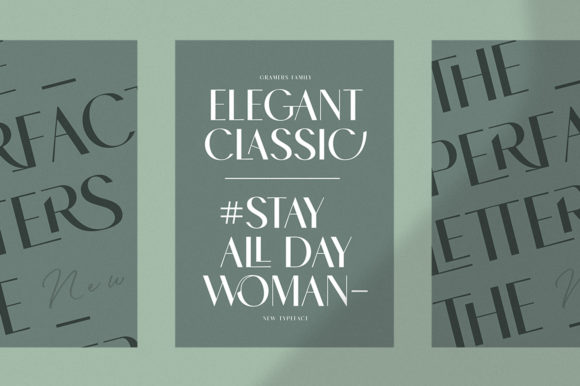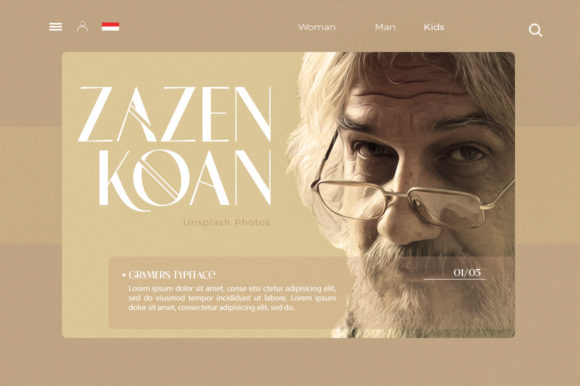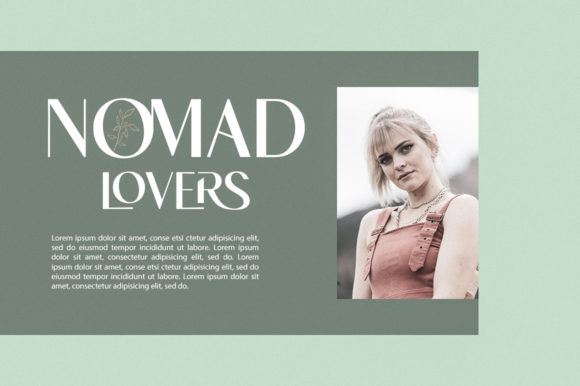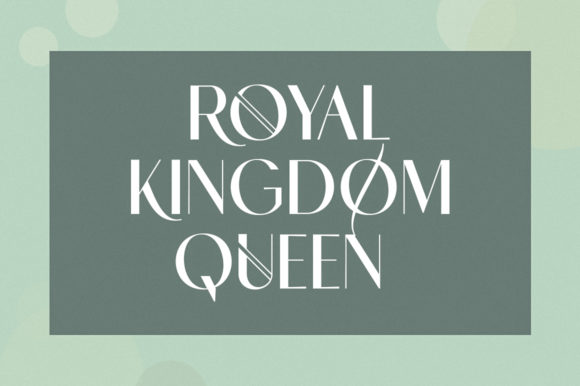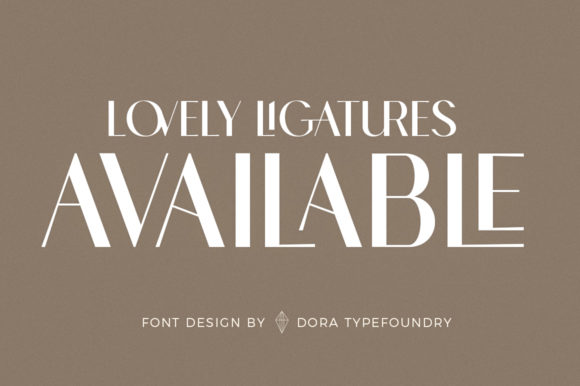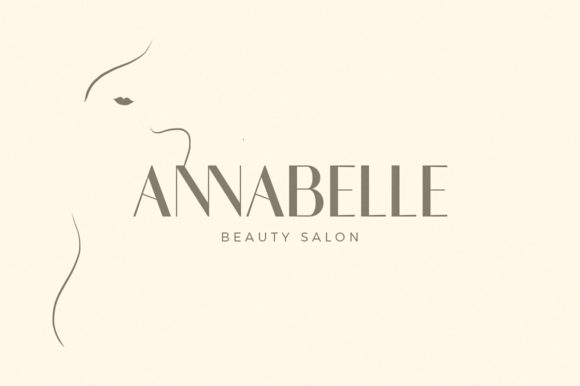
Unlock the Secrets to Unforgettable Design with Gramers Font
As a designer, have you ever found yourself stuck in a creative rut, staring at a blank canvas, desperate for that one perfect font to elevate your project? You know the feeling – the pressure to create something truly memorable, something that stops people in their tracks. That’s where Gramers Font comes in – an elegant and modern display font that’s about to become your new best friend.
With Gramers Font, you’ll have the versatility to create breathtaking titles, logos, magazine covers, headers, and so much more. Its luxurious feel makes it the perfect choice for designers who demand the best. Whether you’re working on a high-end branding project or a stylish magazine layout, Gramers Font is sure to deliver.
- Unique Characteristics: Gramers Font features a unique blend of modern and traditional elements, with a distinctive x-height and letterform structure that sets it apart from other sans-serif fonts.
Designer Review: Gramers Font
As a designer, I’ve had the chance to work with a lot of fonts, and I’ve got to say, Gramers Font is a unique addition to the bunch. Here’s my honest review:
- Legibility: Gramers Font is incredibly easy to read, even at small font sizes. The letterforms are clean and well-spaced, making it perfect for body text.
- Neutrality: The font has a neutral tone that makes it suitable for a wide range of designs, from corporate to creative projects.
- Expressiveness: Gramers Font has a lot of personality, which makes it great for adding a touch of whimsy to your designs.
- Lack of bold weights: While Gramers Font has a range of weights, the bold weights are a bit too light for my taste, which can make the font look a bit washed out.
- Not ideal for headlines: While the font is great for body text, it’s not the best choice for headlines, as it can get lost in the noise.
Overall, I’d say Gramers Font is a solid addition to any designer’s toolkit. While it may not be perfect, its unique personality and legibility make it a great choice for a wide range of projects.
Getting the Most Out of Gramers Font
Here are some tips for getting the most out of Gramers Font:
– Use it for headings and titles to add a touch of elegance.
– Experiment with different font sizes and colors to create visual interest.
– Pair it with other fonts to create a unique and eye-catching design.
Gramers Font is perfect for:
– Creating elegant invitations and event materials.
– Designing high-end branding and marketing materials.
– Adding a touch of sophistication to digital and print content.
Alternatives to Gramers Font for Designers
Great Vibes Font is a modern, cursive script font perfect for creative and artistic projects. It’s ideal for use in headings, titles, and short paragraphs where a touch of elegance is required. Great Vibes Font has a more whimsical feel compared to Gramers Font, which is more formal and clean.
Pacifico Font is a beautiful, elegant script font that’s perfect for use in luxury branding, invitations, and wedding designs. It’s ideal for use in headings and titles where a sense of sophistication and refinement is required. Pacifico Font has a more classic and vintage feel compared to Gramers Font, which is more contemporary.